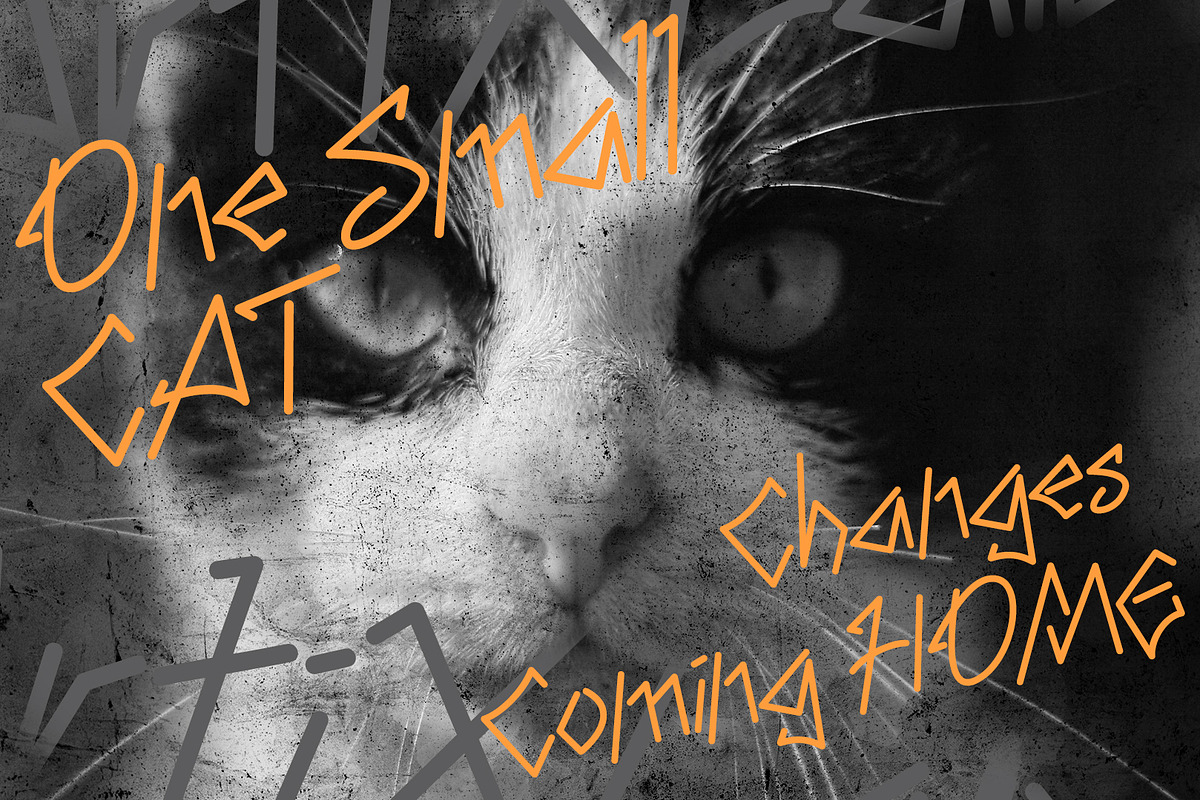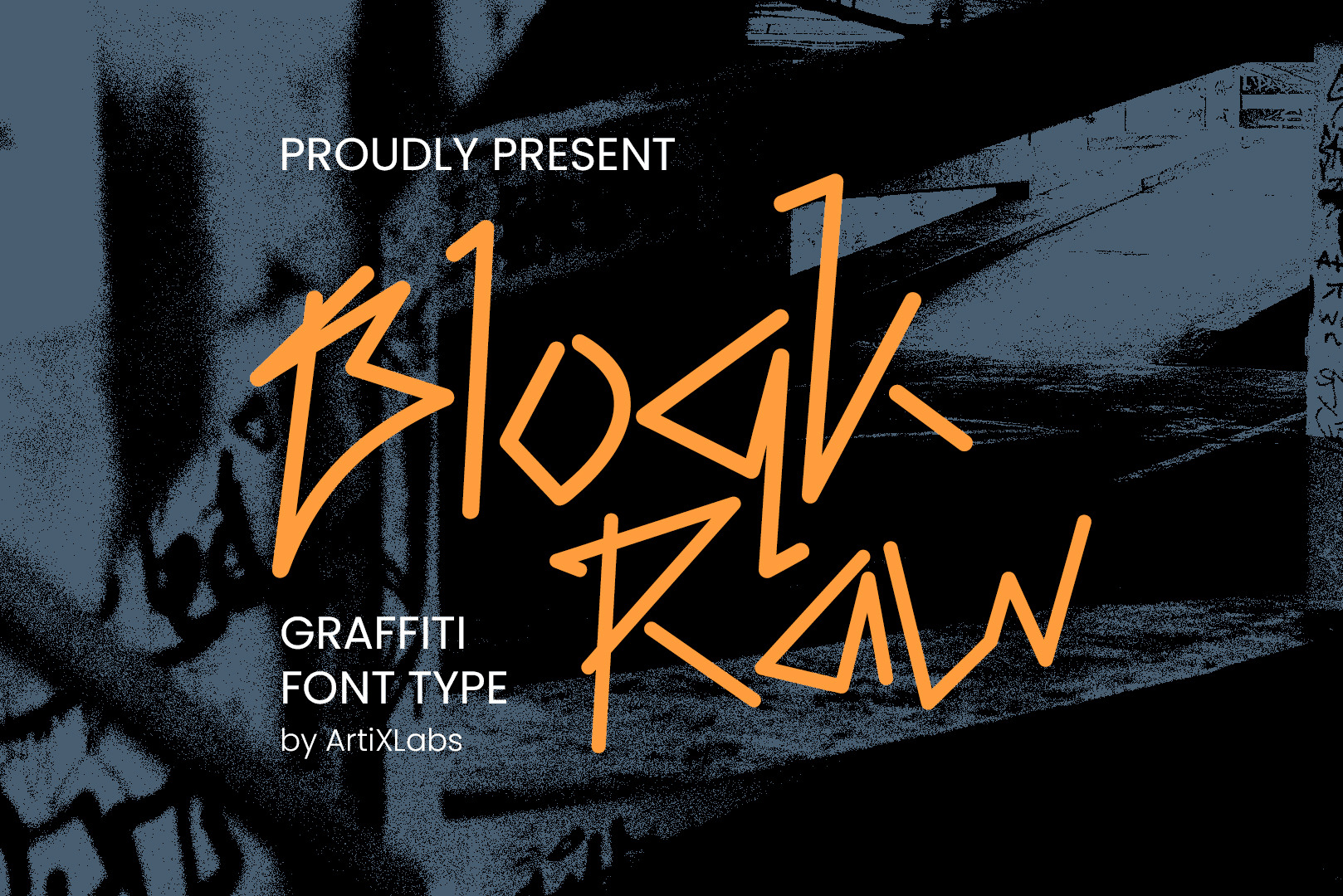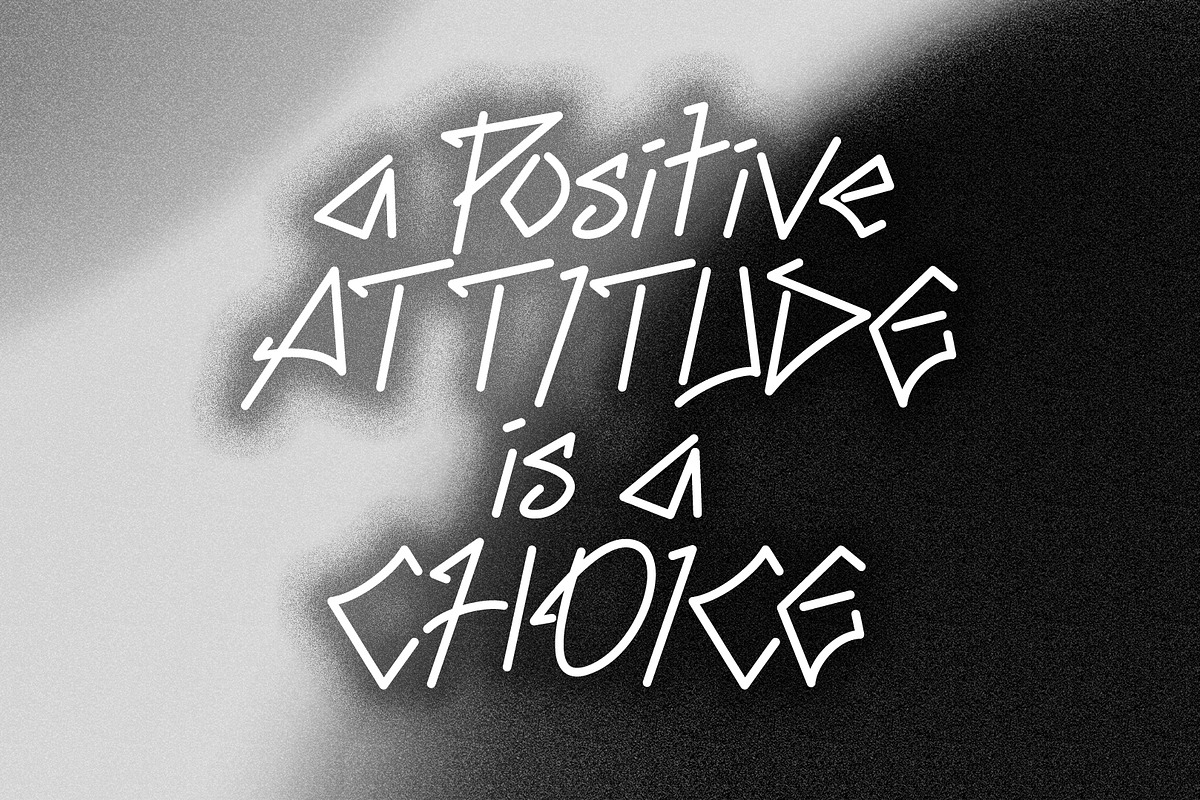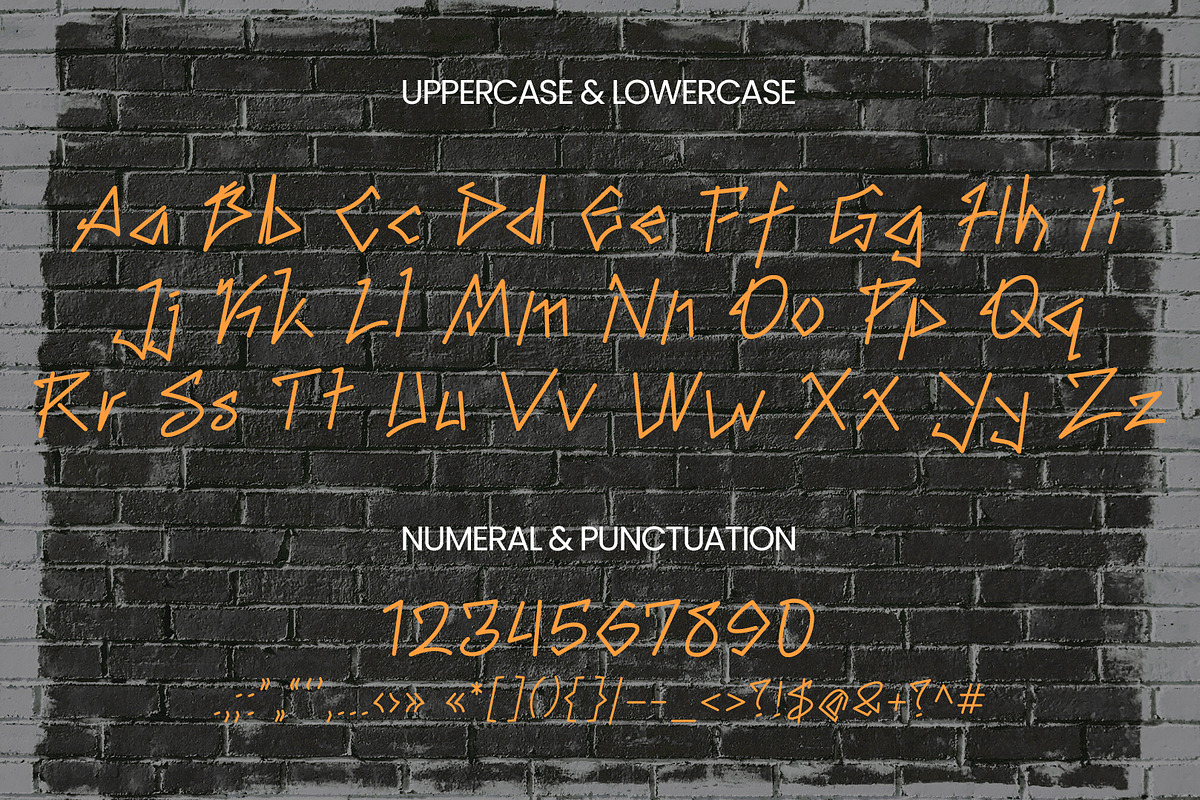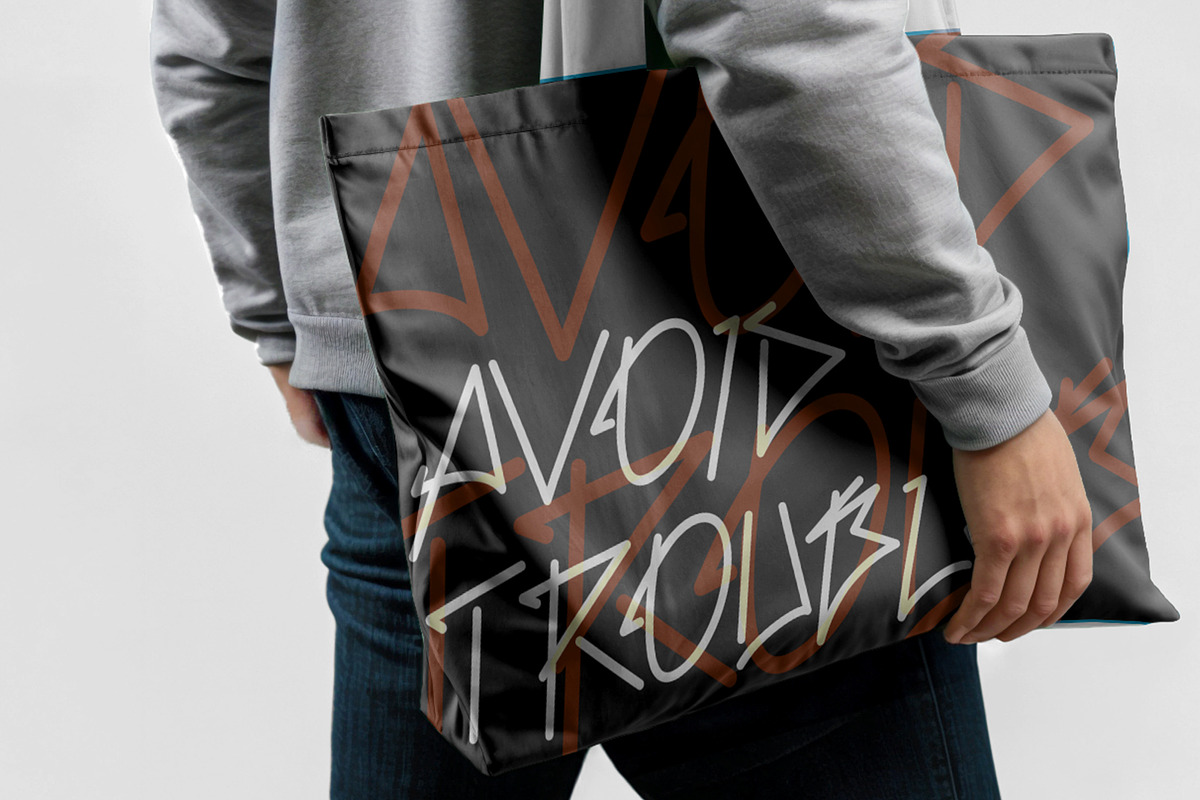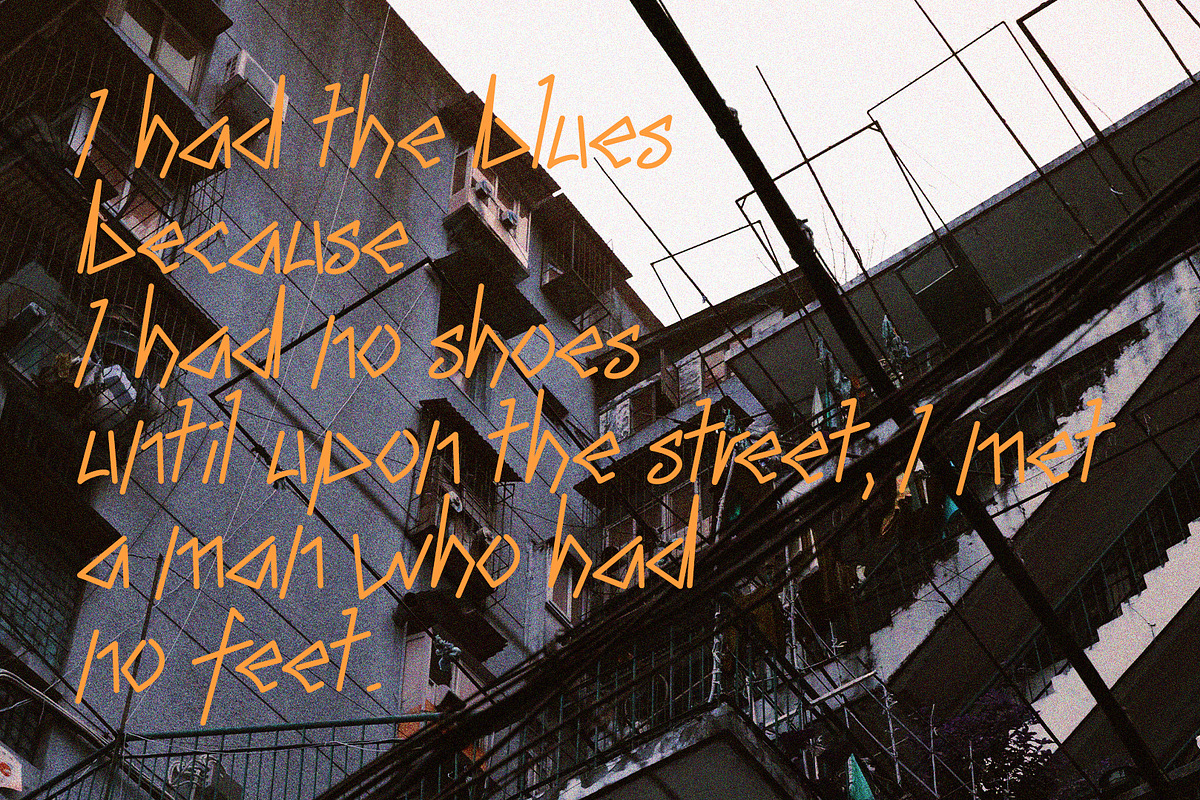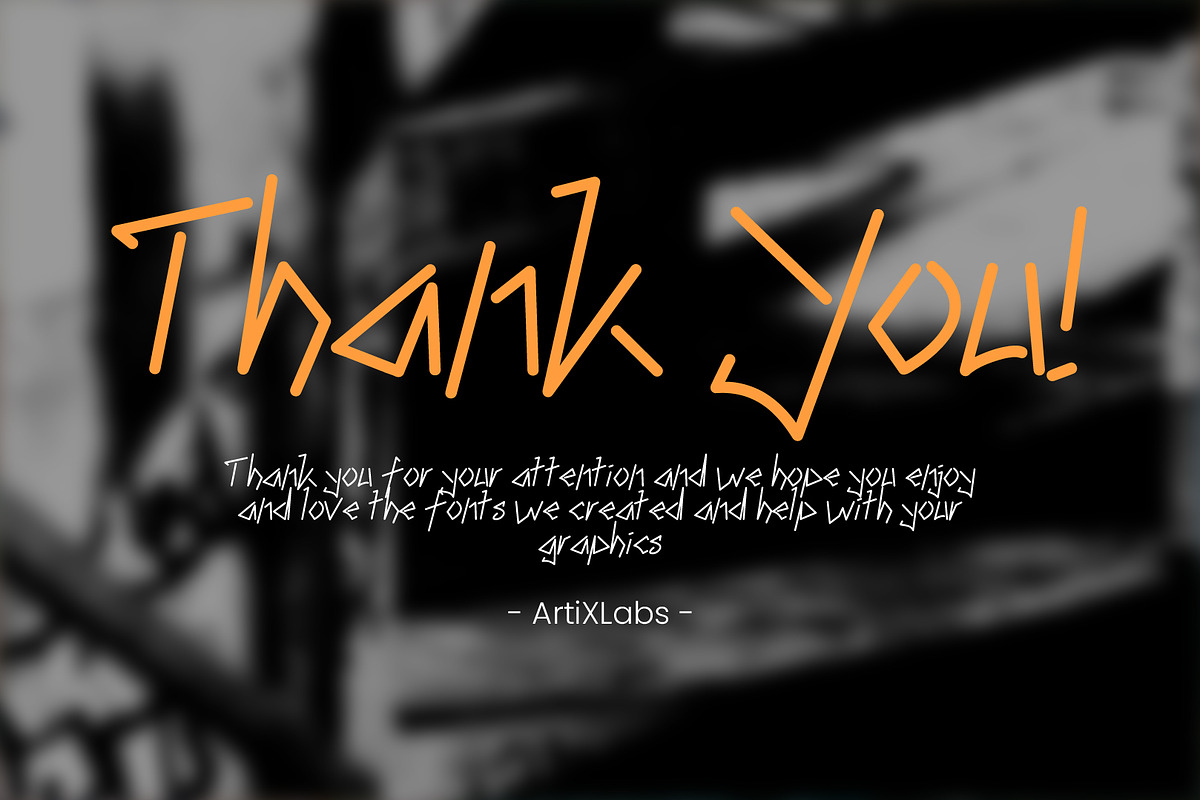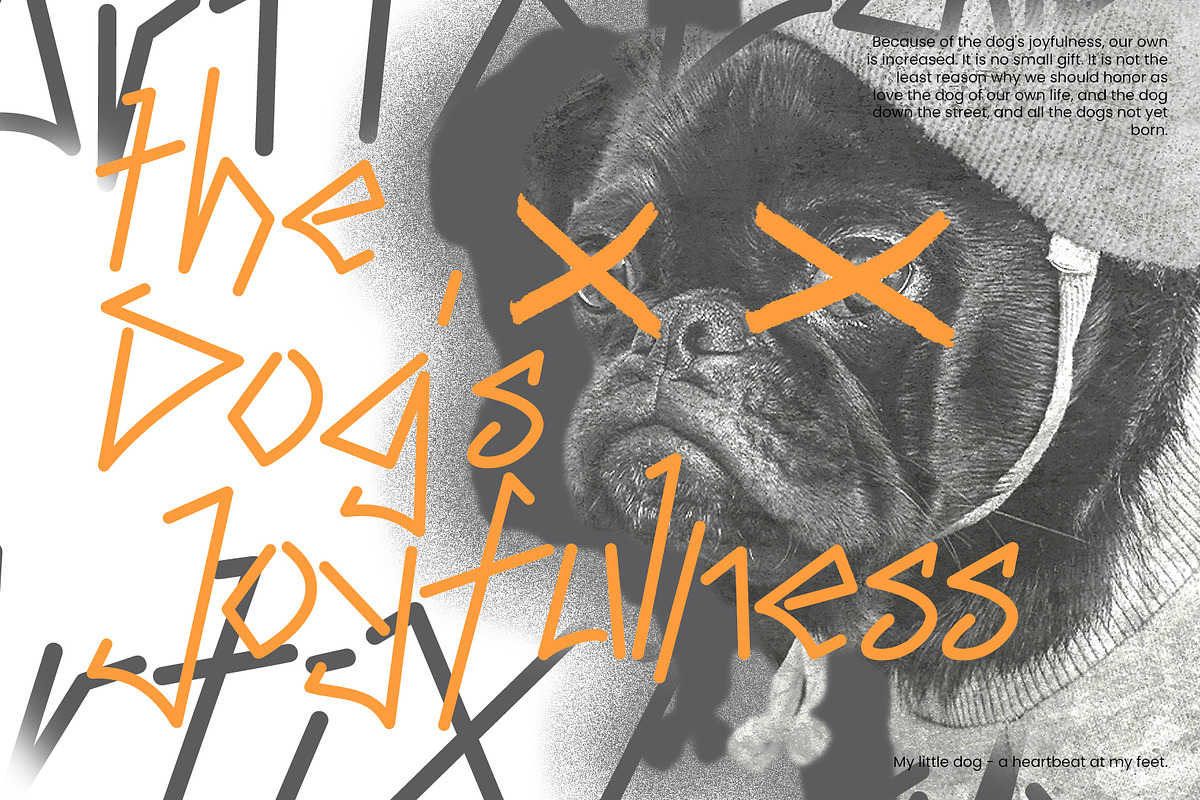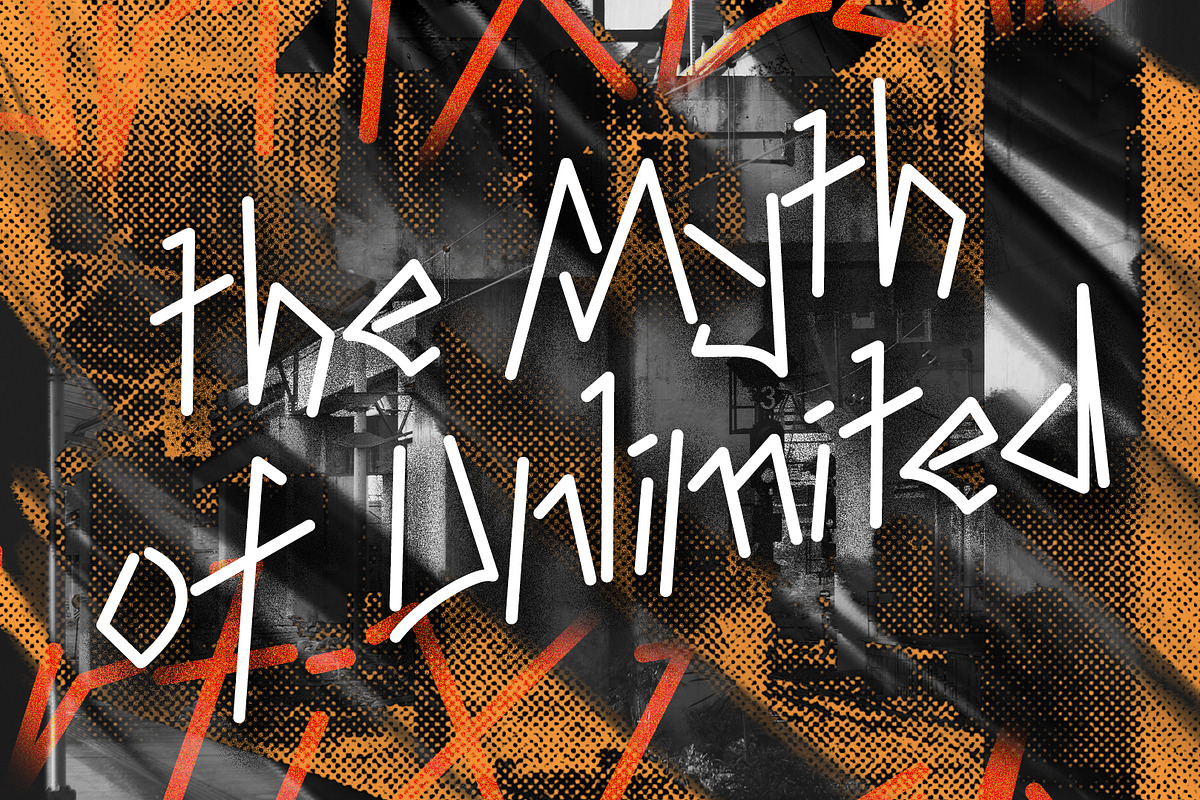
Bloqk Raw Grafitti Font Typeface
Introducing BloqkRaw - Grafitti Font
This Font Template contains Street, Wild, Urban, Creative, Grafitti and Unique Concept.
- Uppercase & Lowercase letters